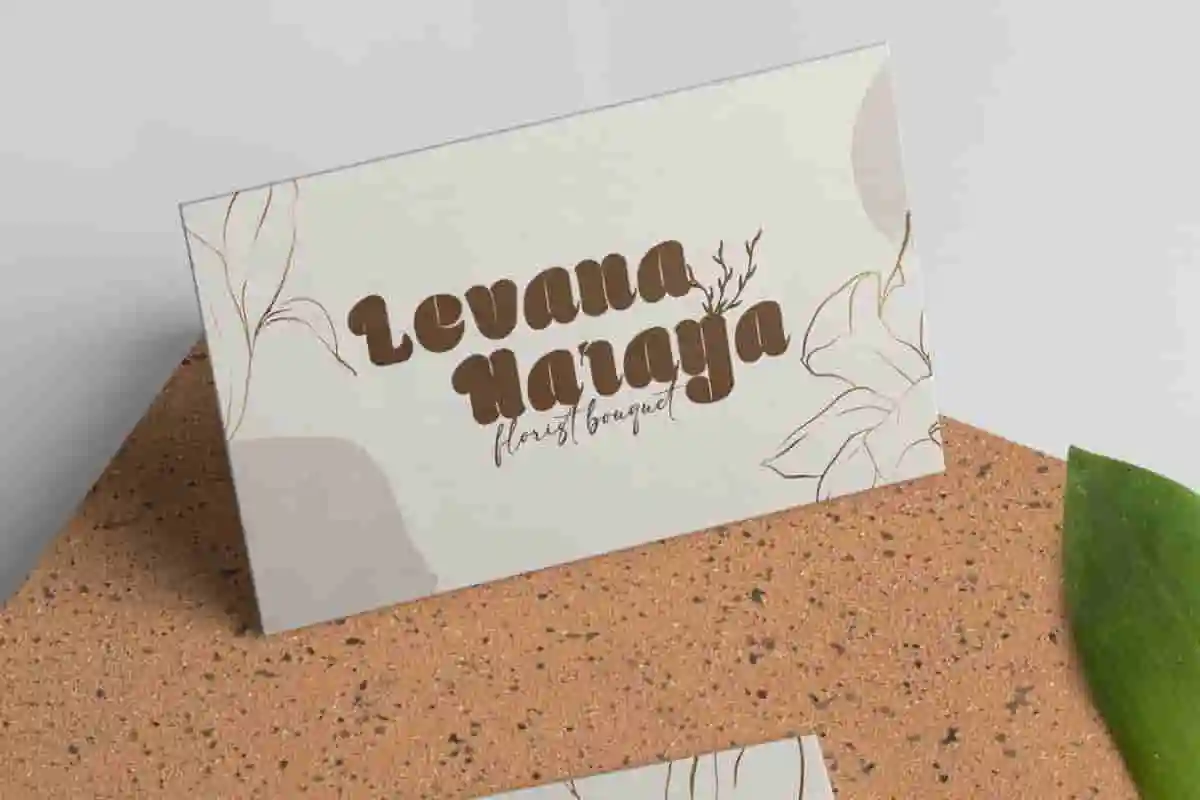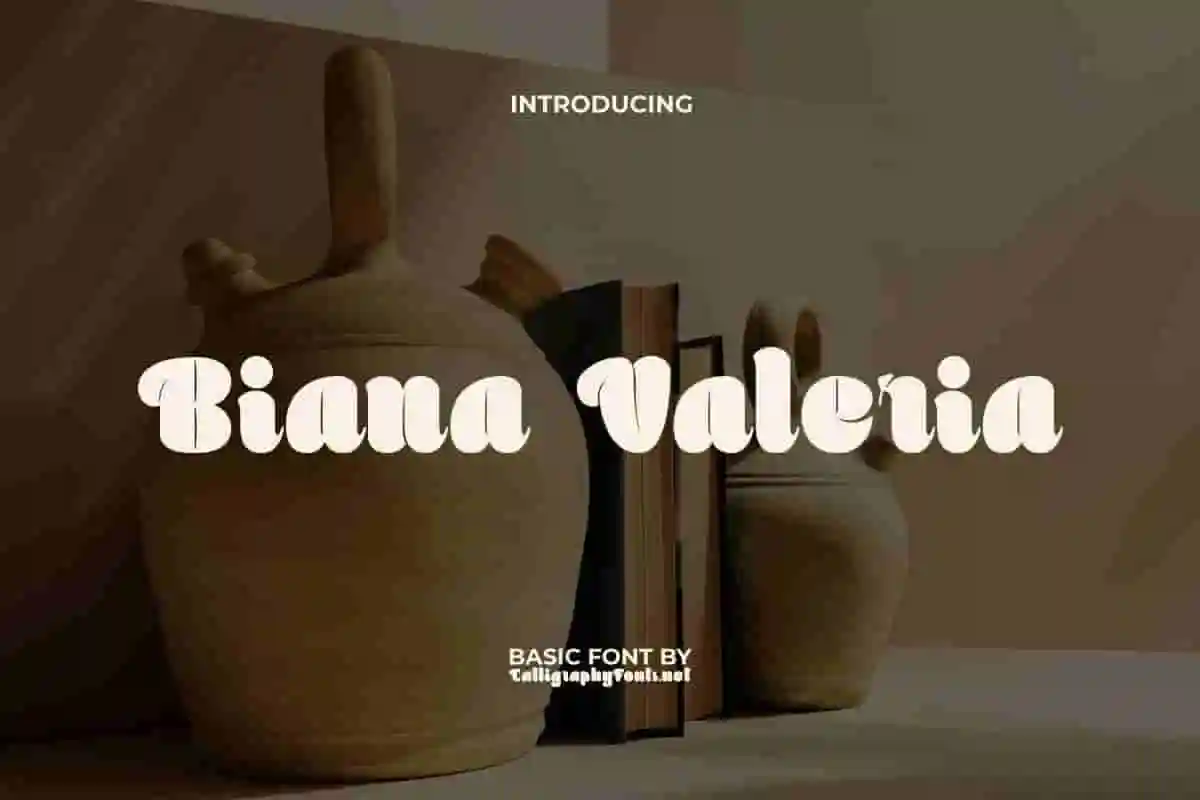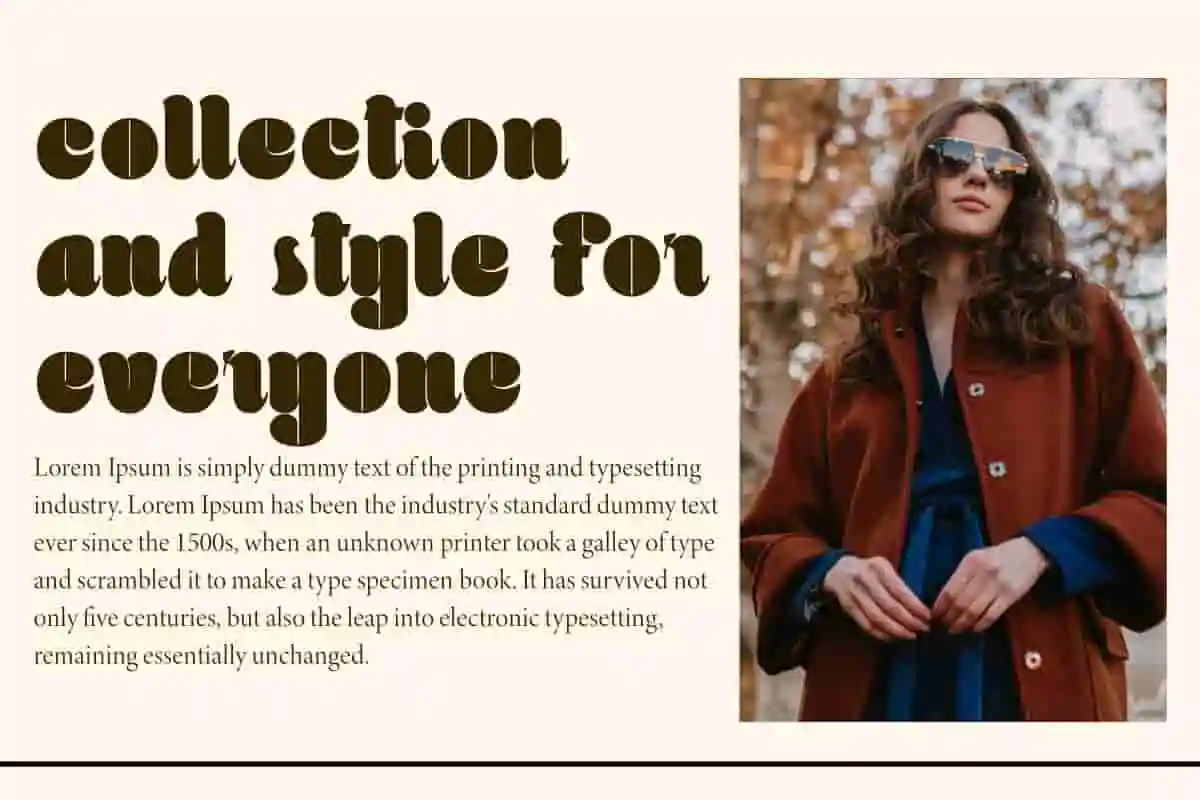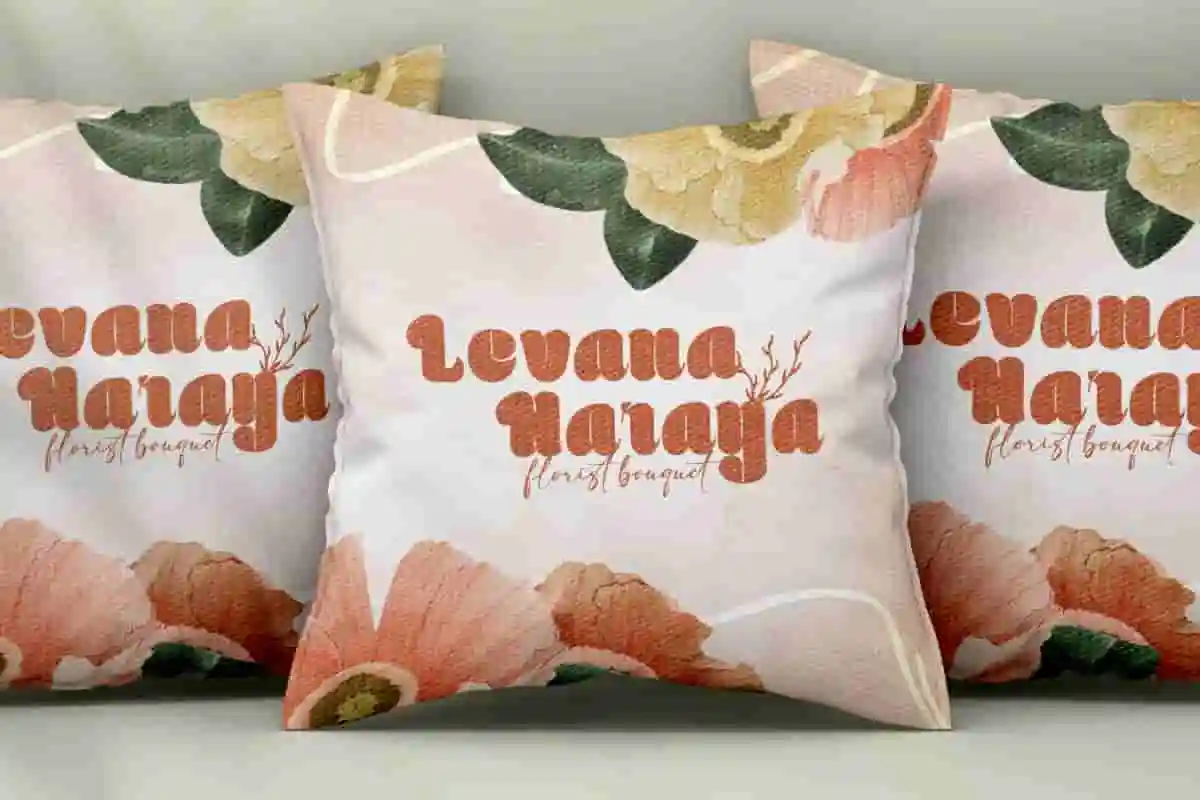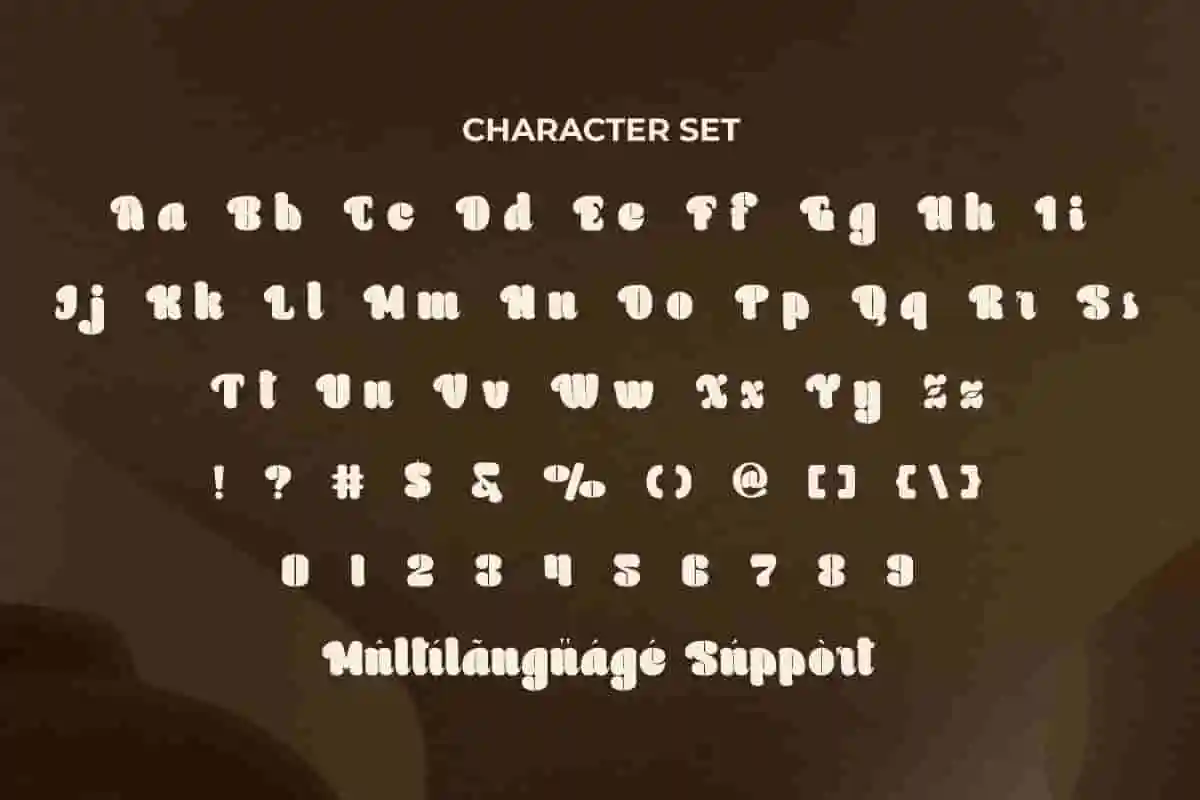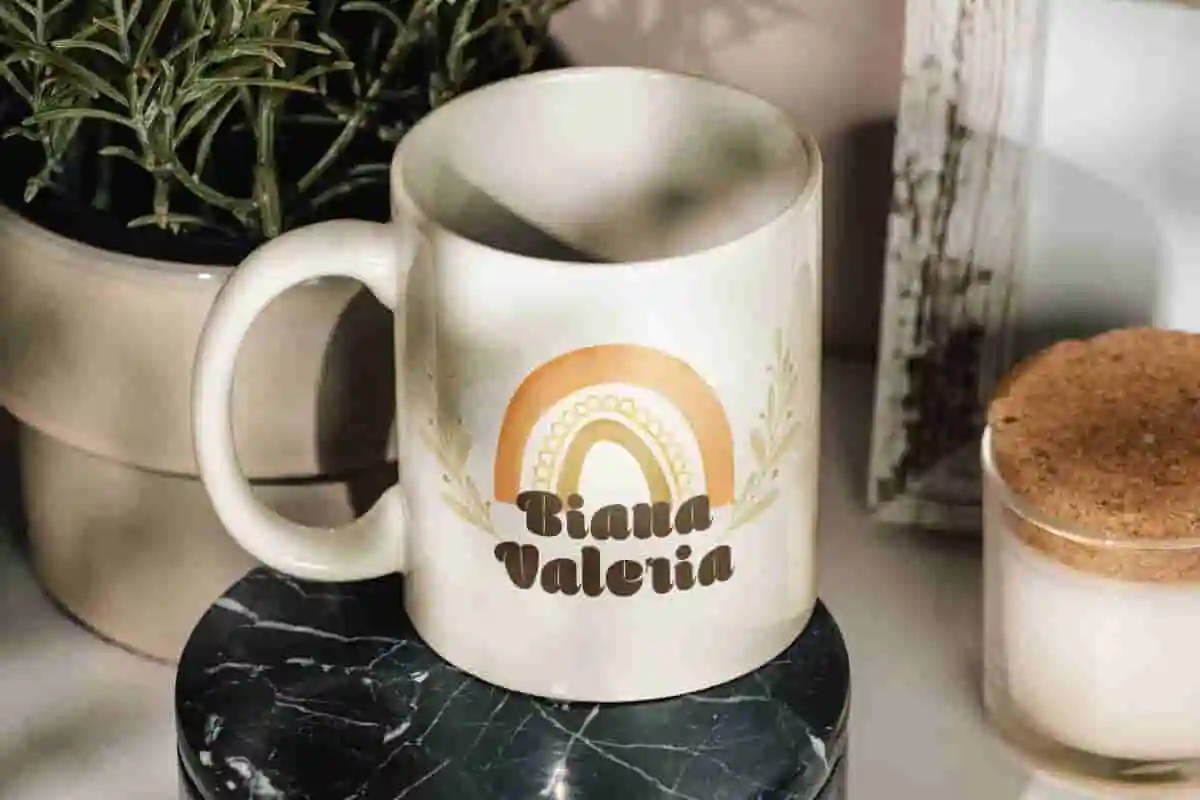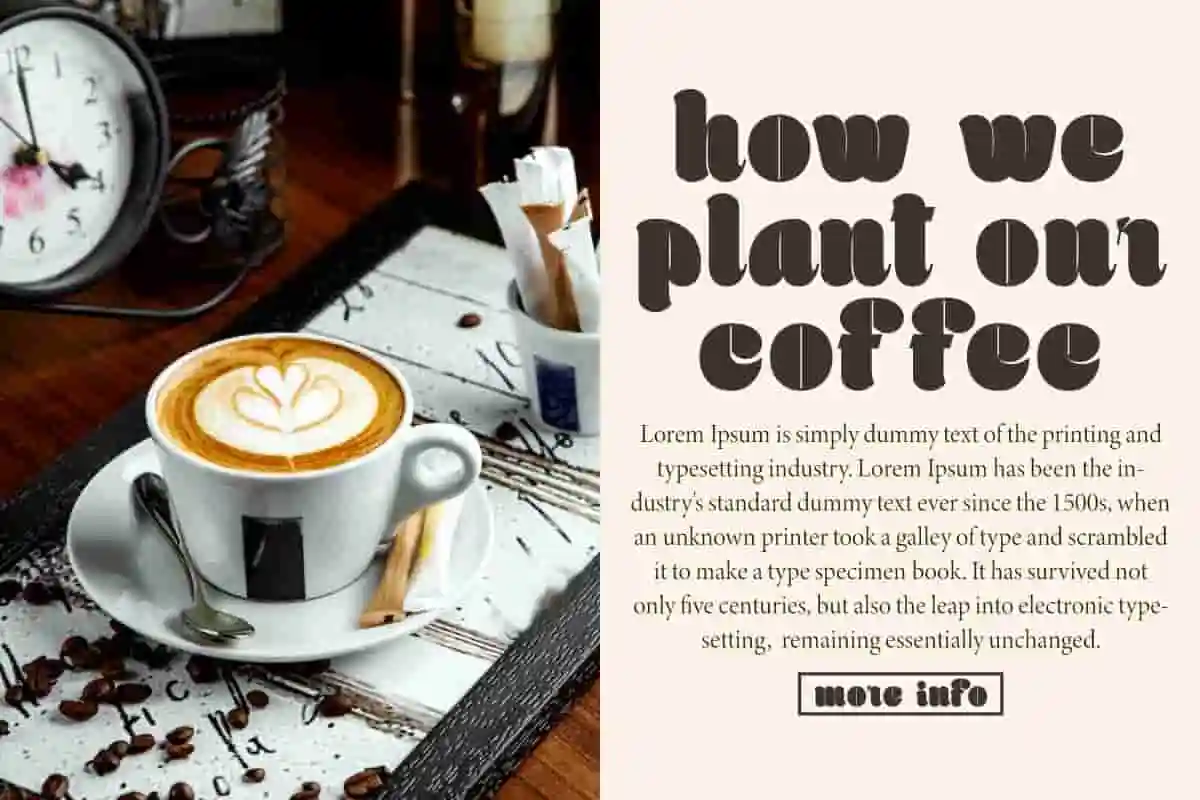
Biana Valeria Font
Biana Valeria Font is a cute bubbly basic display font that stands out for its boldness. This font has a unique character set so it can be perfectly adapted into any design, so give the font a try today!
Biana Valeria Font is a cute attractive basic display font with thick rounded letterforms and sharp edges. The classic font display is packaged in a more contemporary style. This font will be suit for blogs, branding identity, brochure, card design, custom design mug, header, heading, headline, labels, logotype, mockup, poster, printed materials, quotes, screen printing, stationery, template, title, website, and many more.
Make your special moments unforgettable with Biana Valeria Display Font, a romantic script typeface designed to capture love and elegance in every stroke. With its graceful curves and delicate swashes, this font is the perfect choice for wedding invitations, save-the-dates, bridal stationery, and event branding.
Biana Valeria Display Font is an impressive basic display font with an unusual solid thickness innovation that makes any design feel prominent and visible. Honestly, once you see this you will never get bored! This font is perfect for advertisement, apparel, cafes, content creator, corporate, fashion, florist, graphic design, handicraft, home furniture, interior design, photography, printing, publishing, web designer, etc.